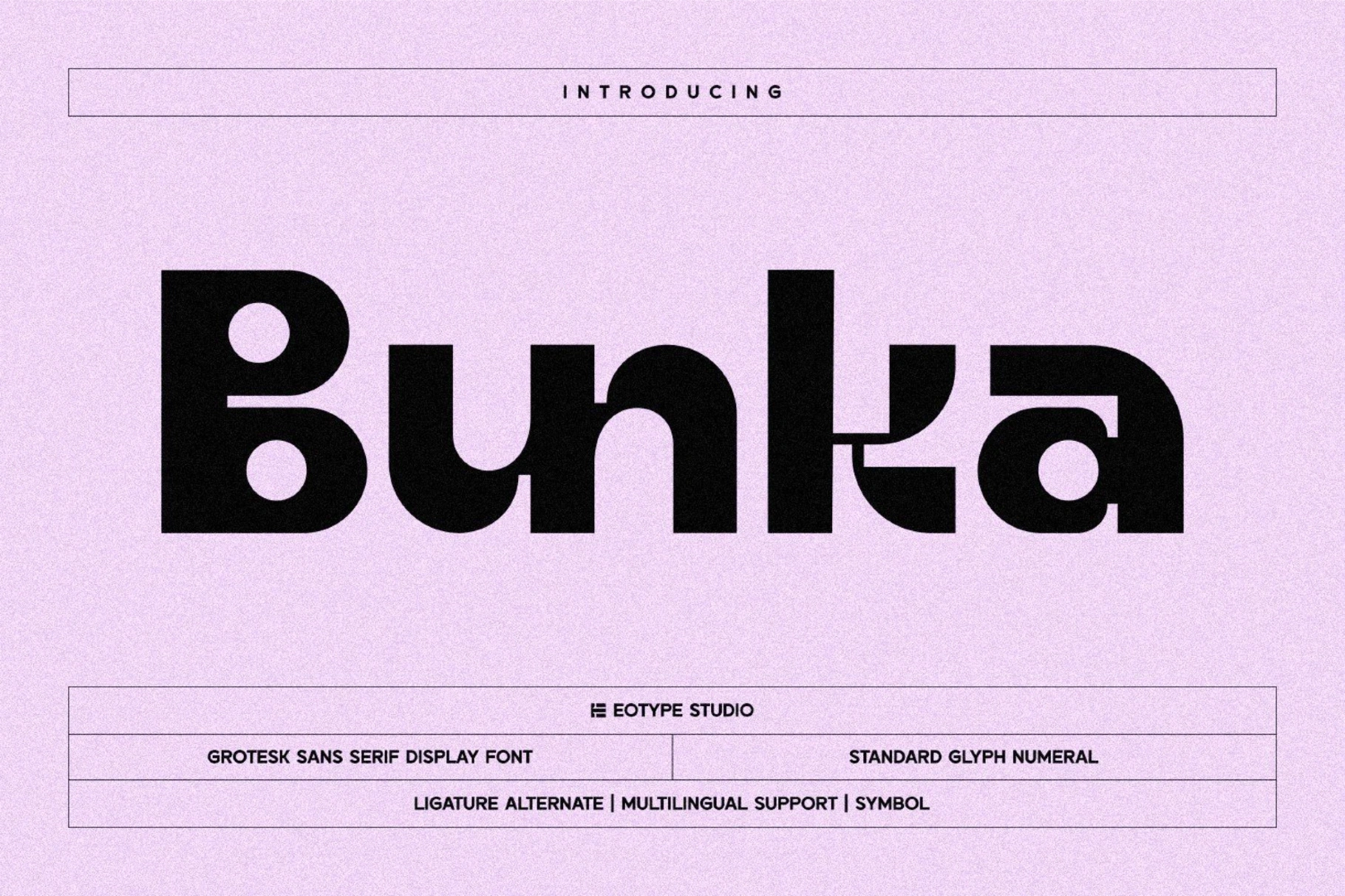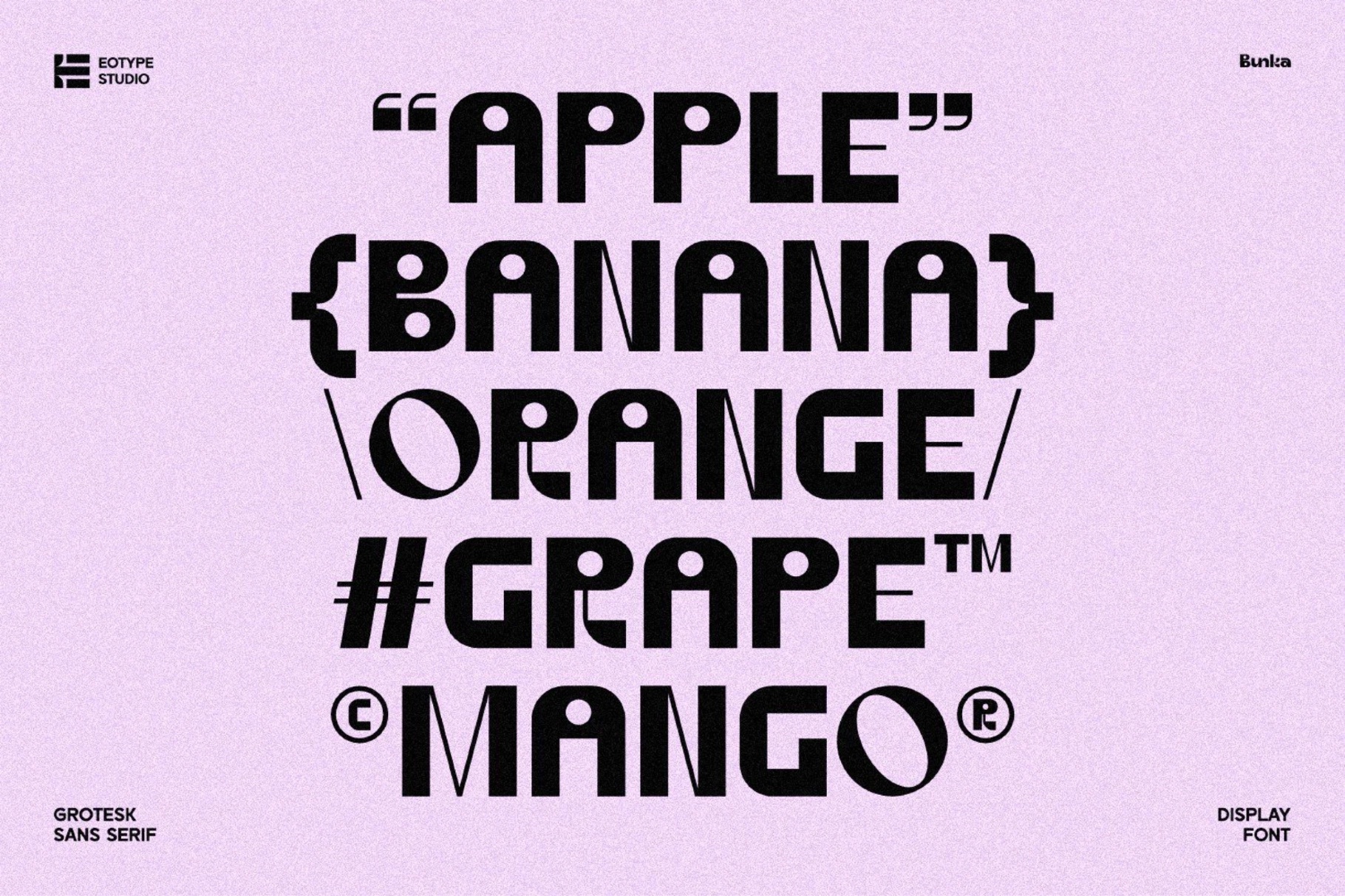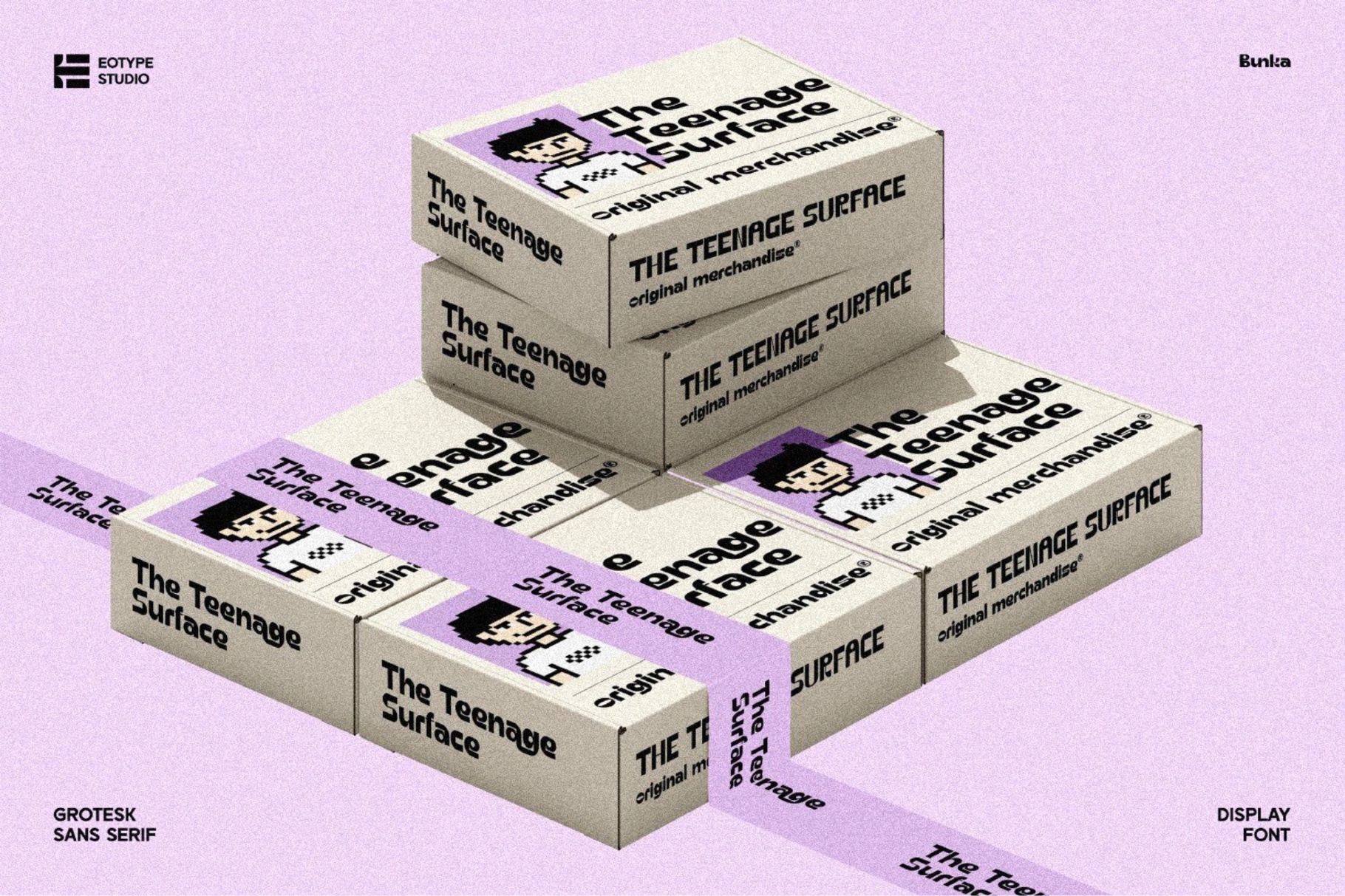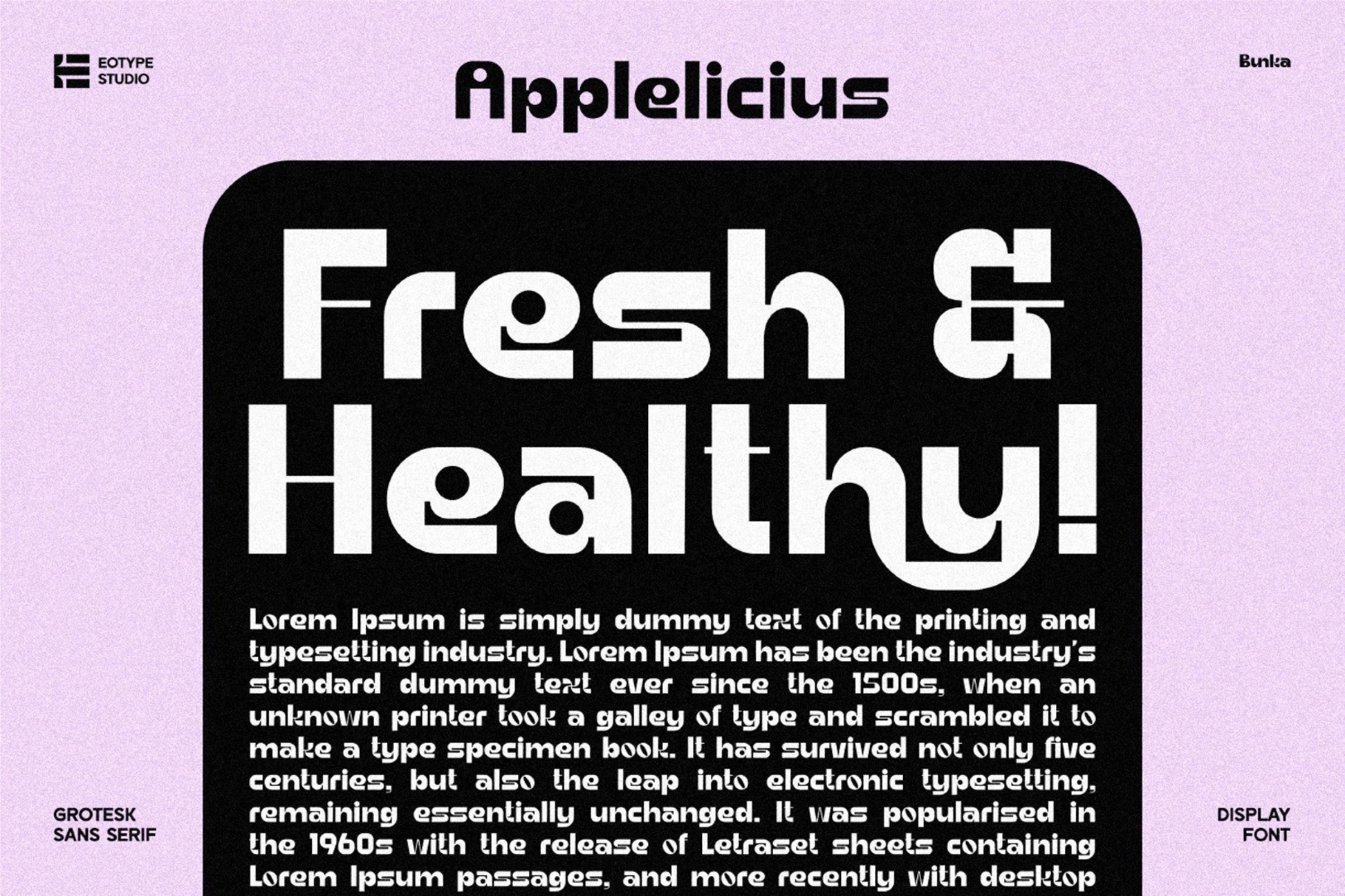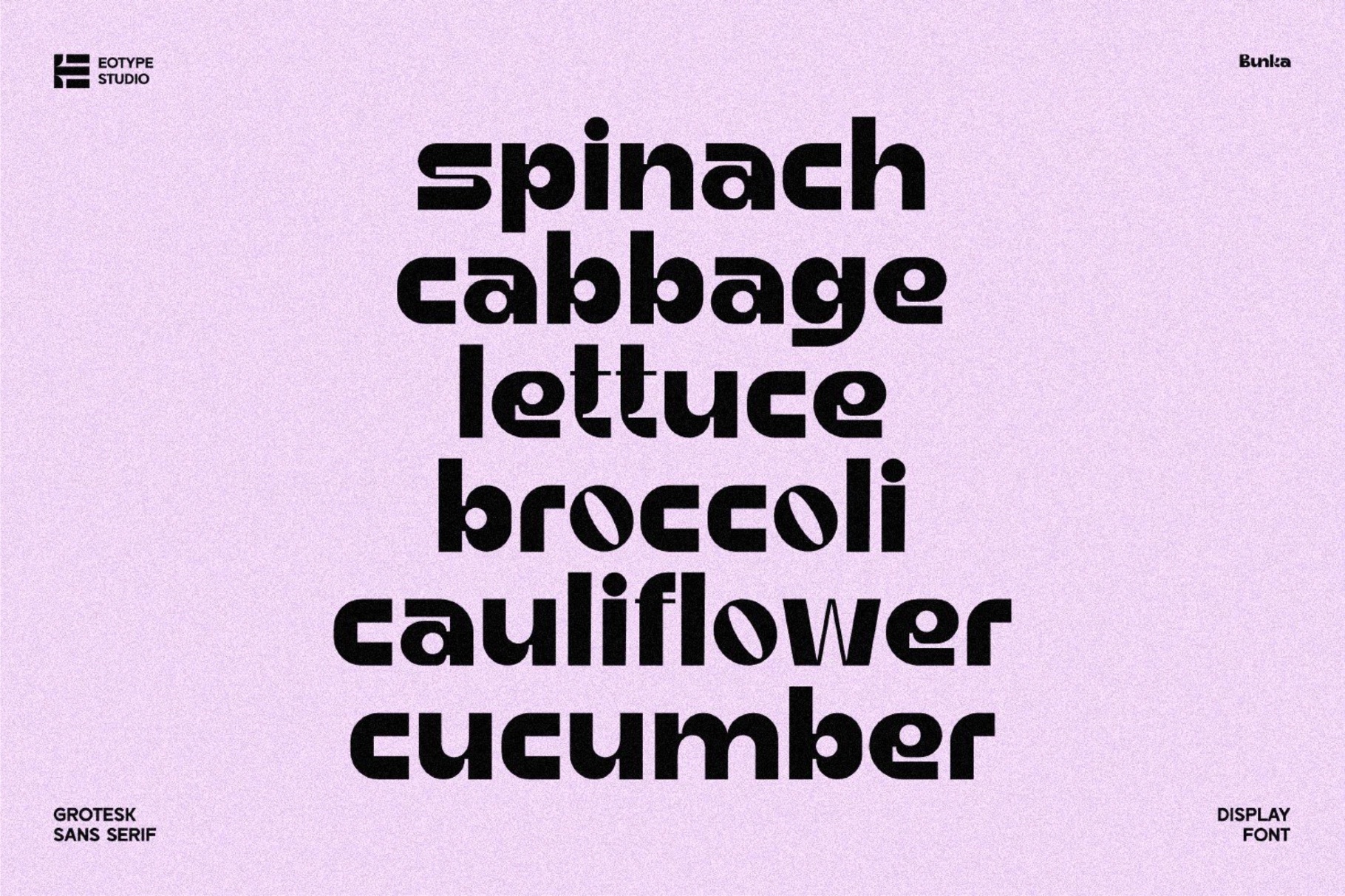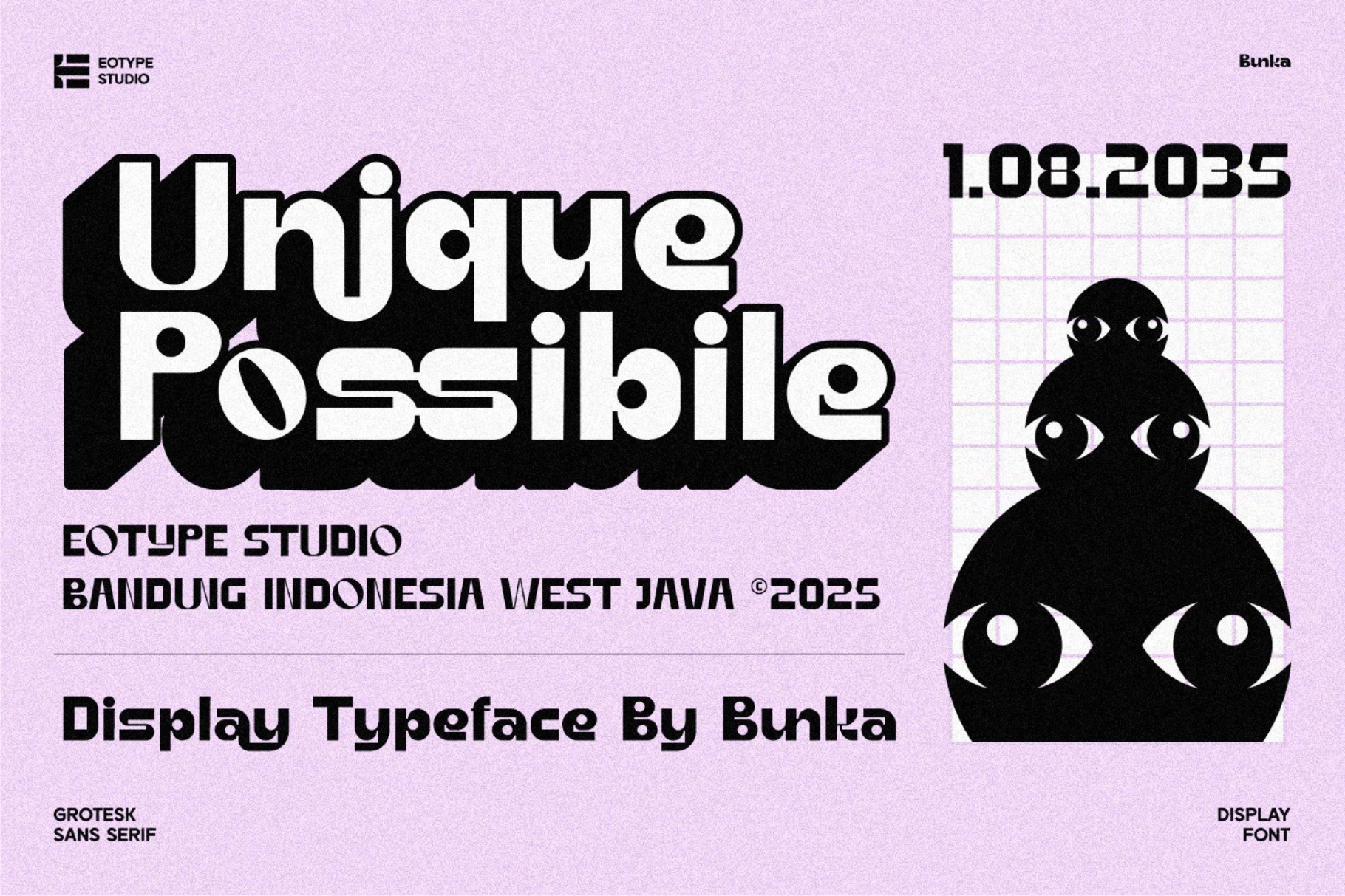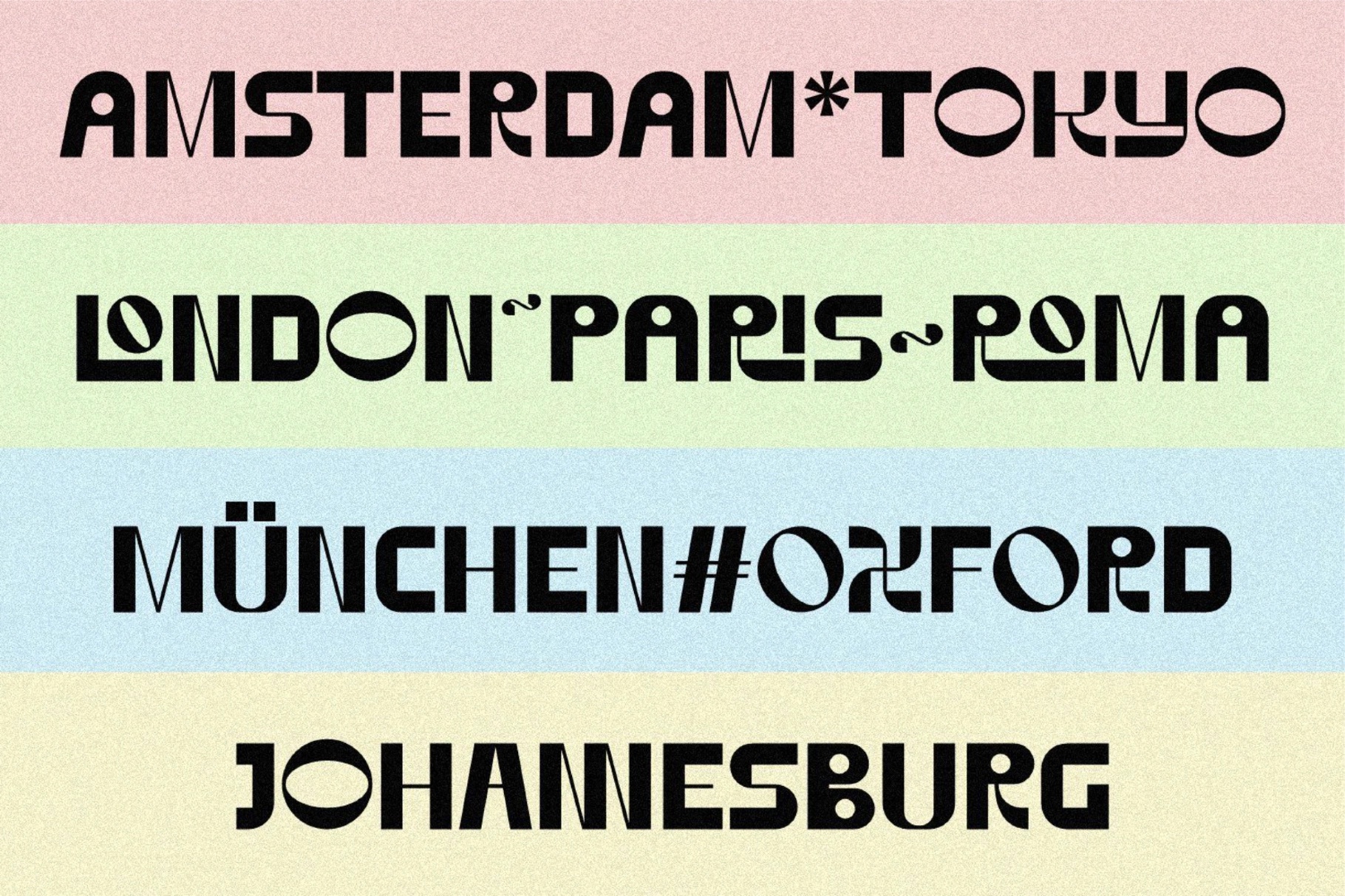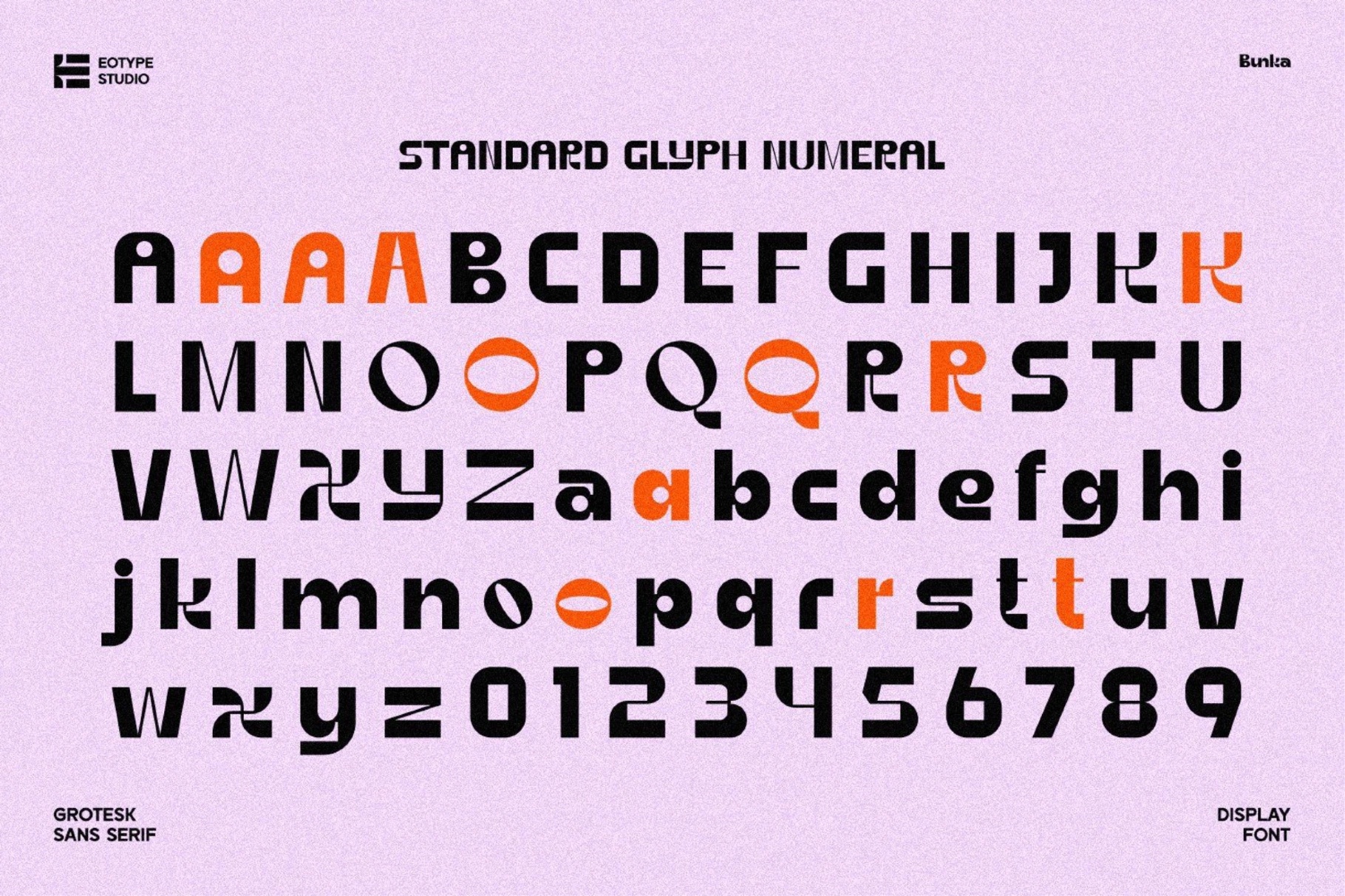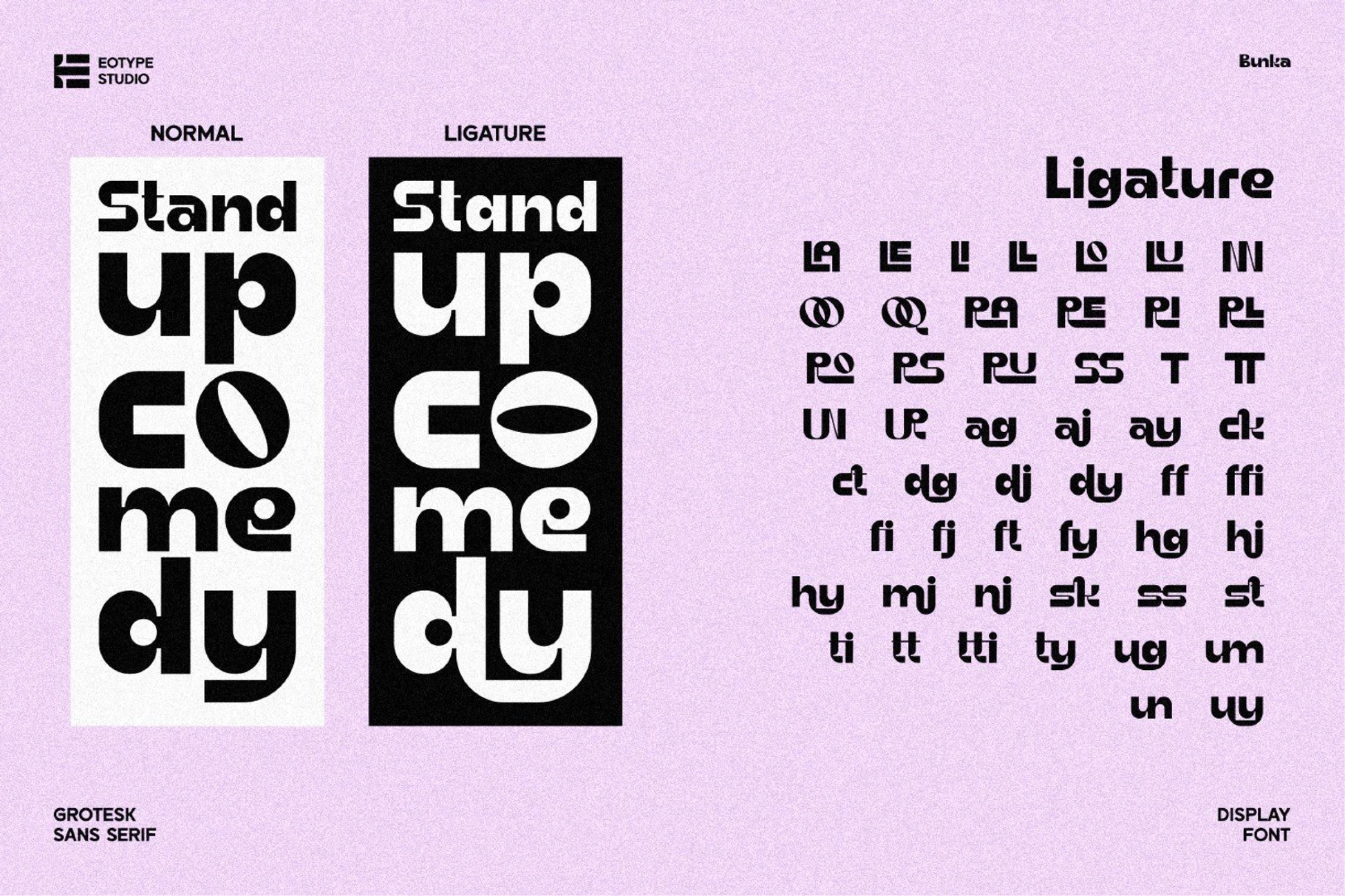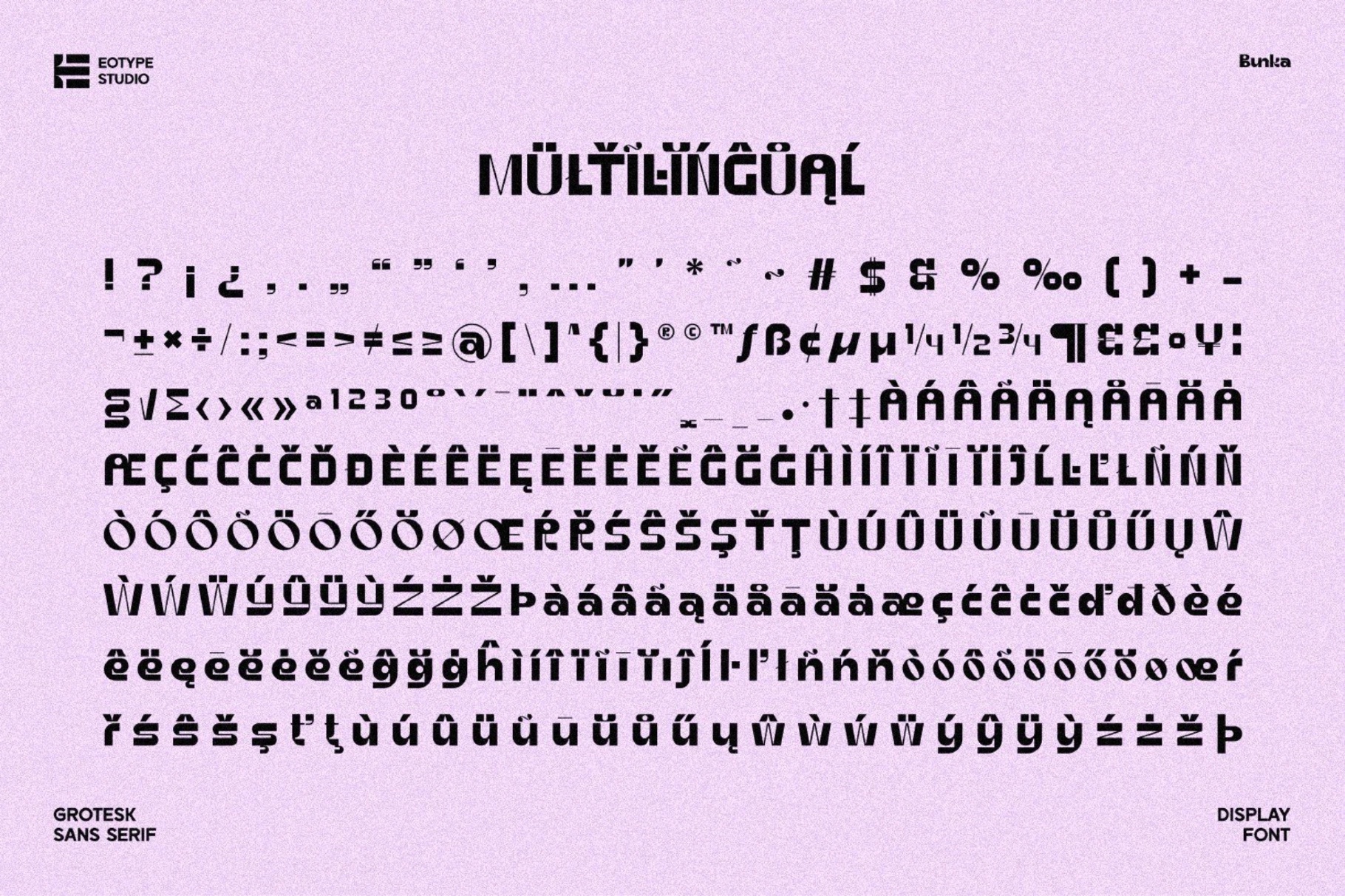
Bunka - Grotesk Sans Serif Font
Bunka
This sans serif typeface is bold, graphic, and sharply cut, with heavy letterforms, tight curves, and angular ink-trap details that give every word a firm visual bite. Its high contrast construction adds a refined edge, while the alternate characters and ligatures bring in a playful, slightly odd rhythm — the good kind of odd.
Bunka works well for branding systems, editorial headlines, poster design, album covers, packaging, logo marks, fashion campaigns, food and beverage labels, web headers, social media graphics, merch typography, event titles, and more. It is the kind of display font that can make a short word look like it has a publicist.